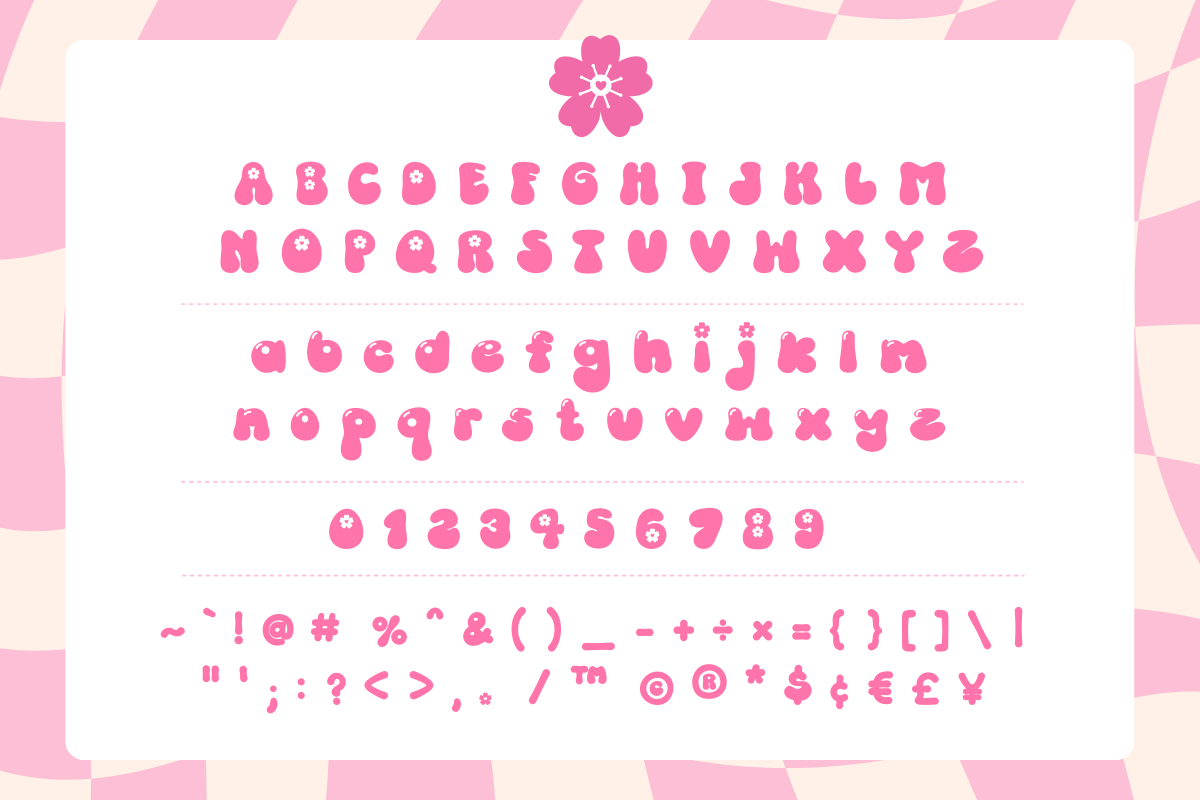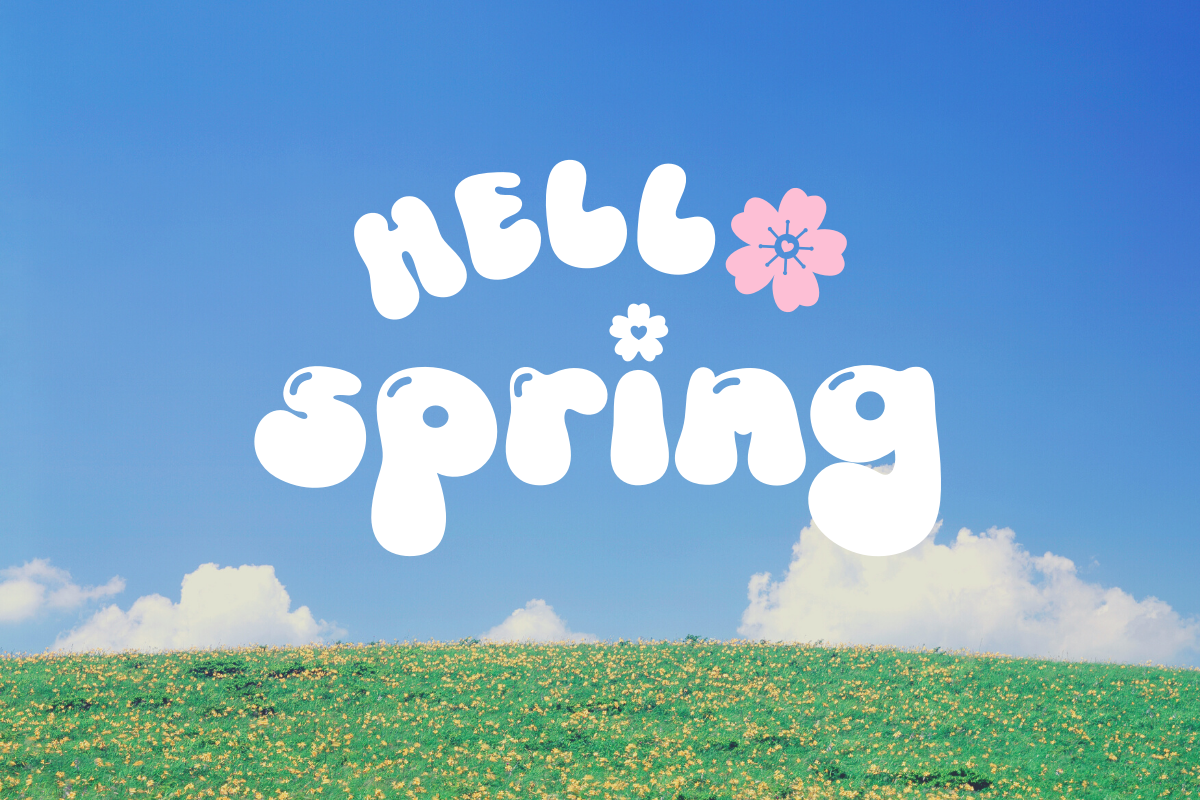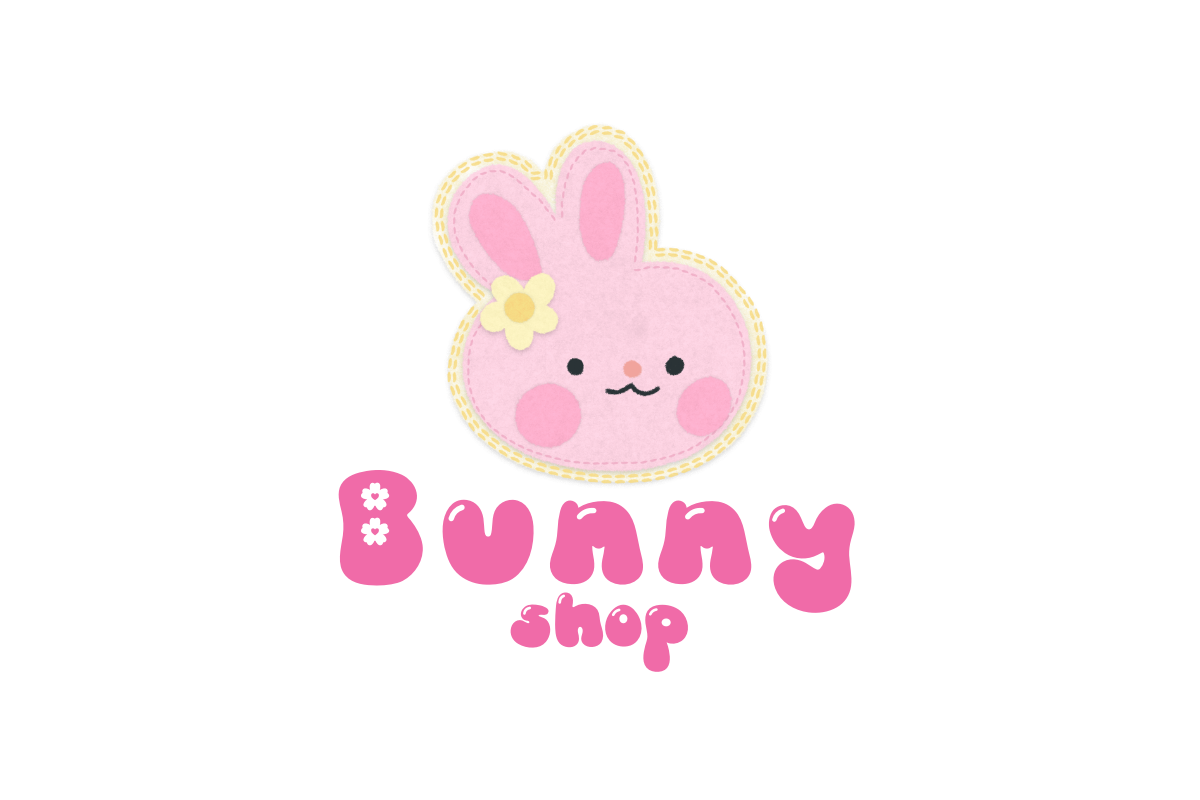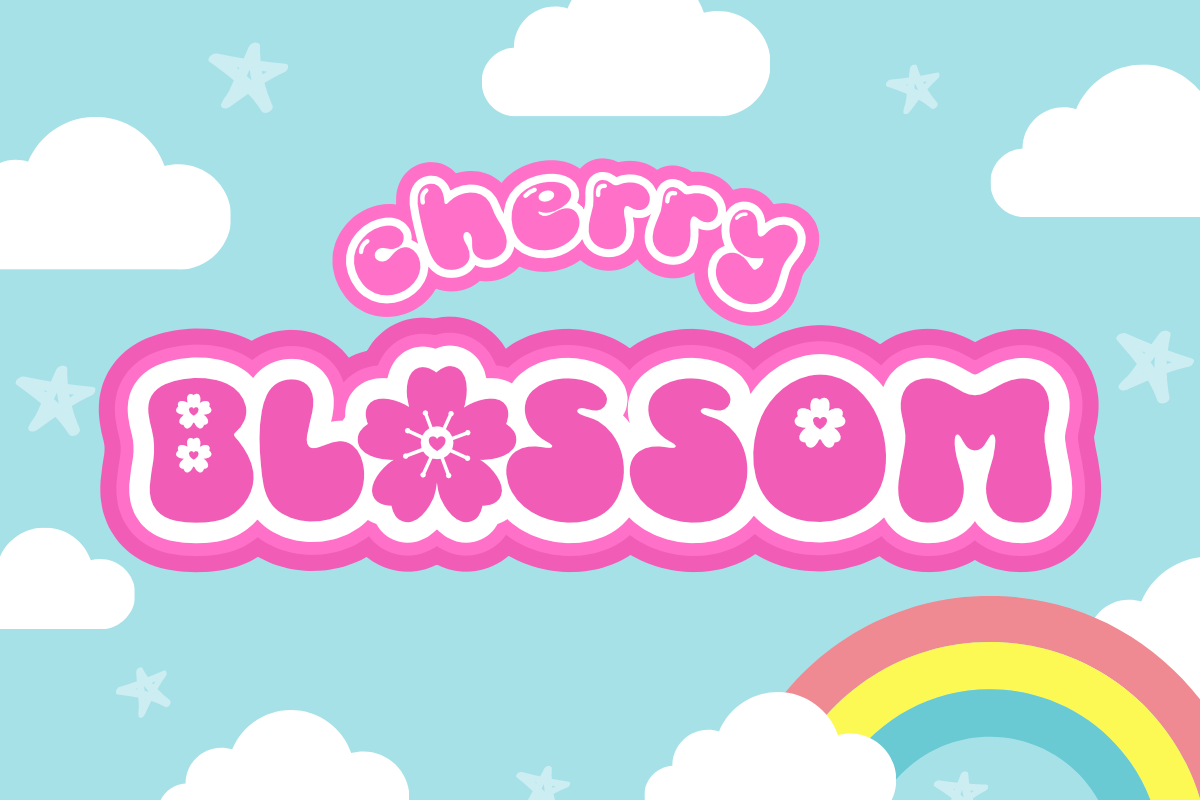
Cherry Blossom Cute Display Font
Cherry Blossom is a cute display font that adds a sweet and retro touch to your designs with cherry blossom floral elements. This font is perfect for a variety of design projects, including logos, quotes, greeting cards, posters, t-shirts, and much more.